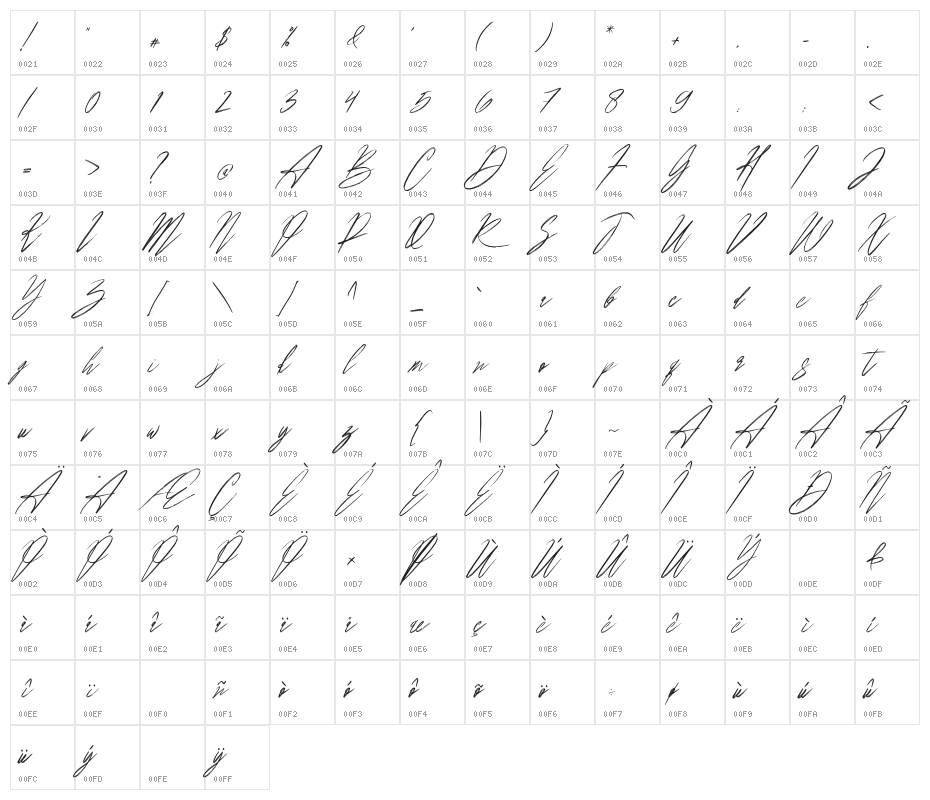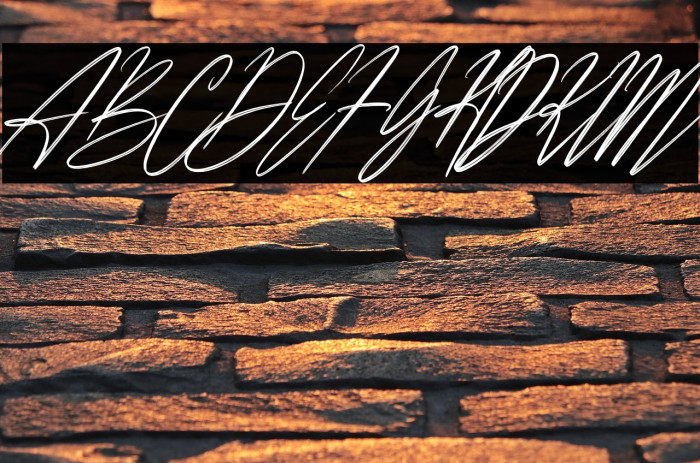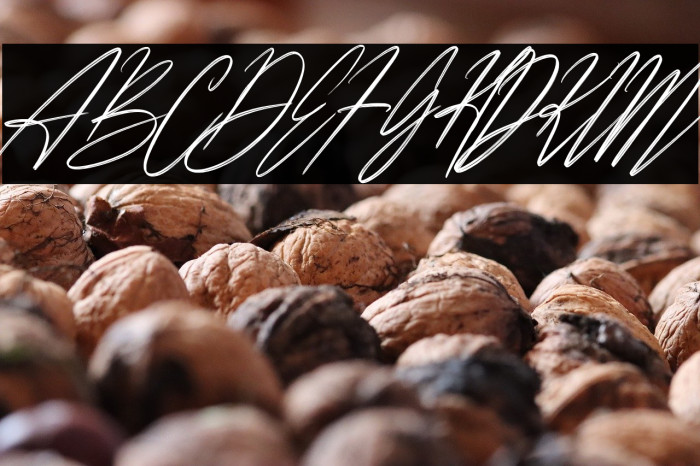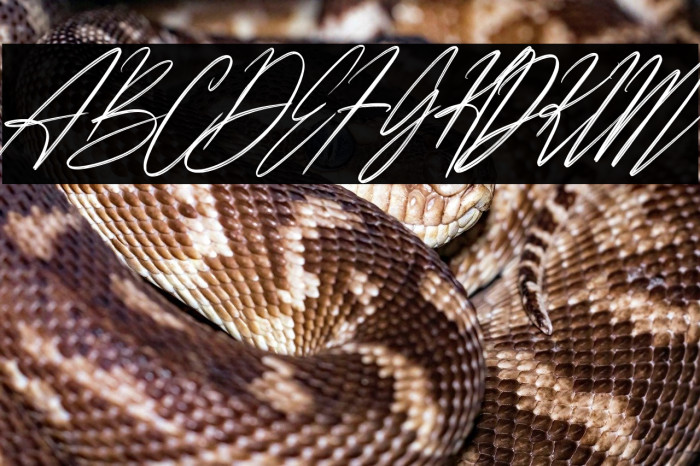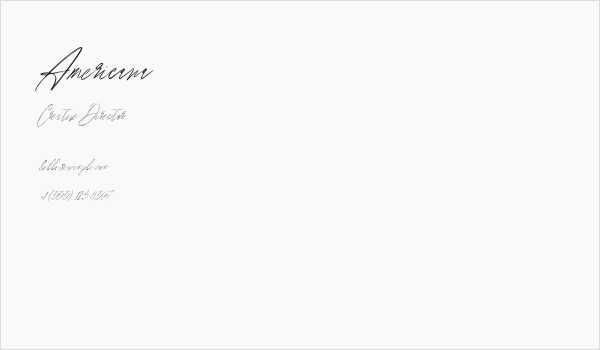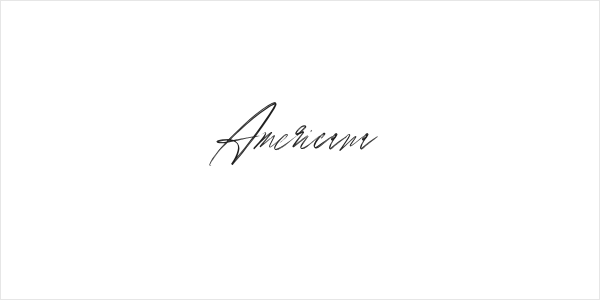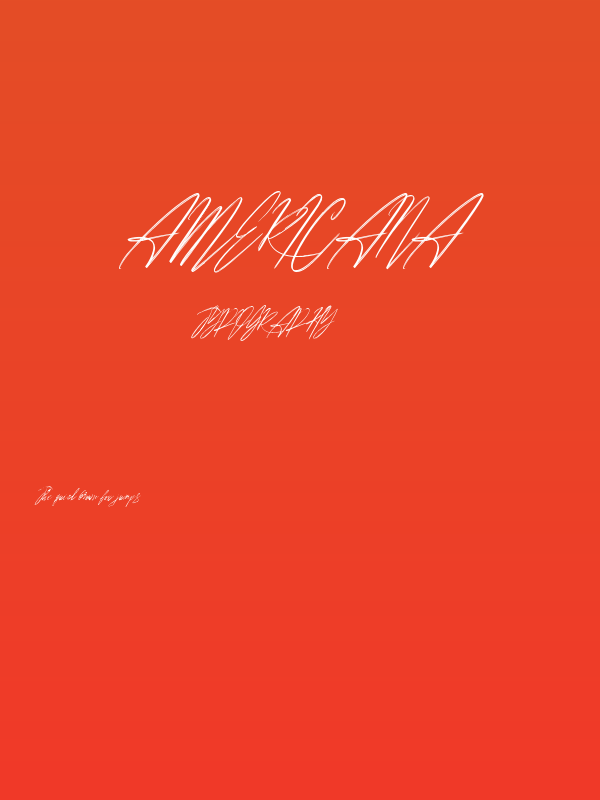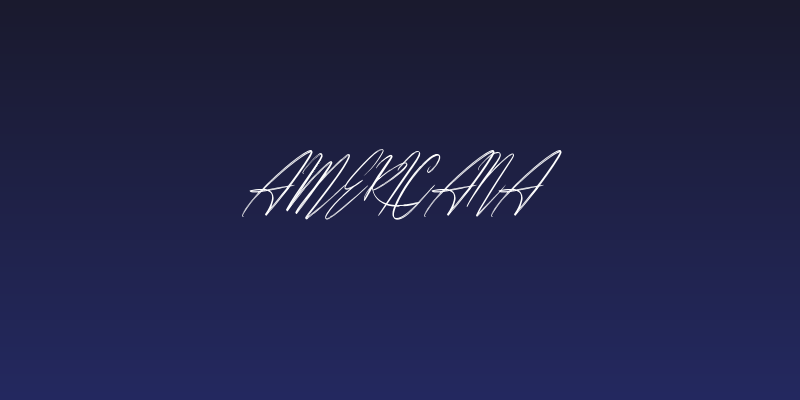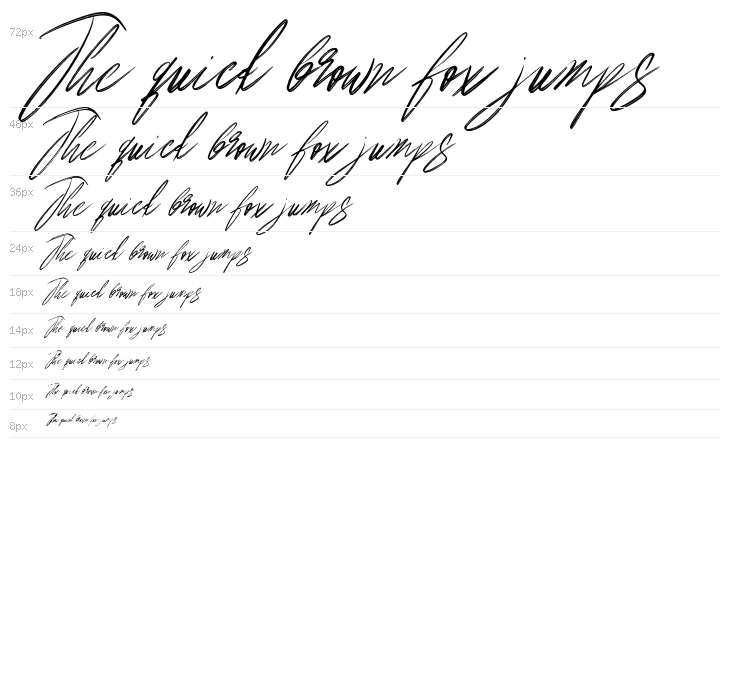
Americana Font
Americana Description
This font features a dynamic and expressive script style, characterized by fluid, sweeping strokes that convey a sense of elegance and movement. The uppercase letters are bold and dramatic, with exaggerated loops and curves that create a sense of grandeur. The lowercase letters maintain the same fluidity, with a more refined and delicate appearance. Numbers and special characters are crafted with the same attention to detail, ensuring consistency across all elements. The overall design is reminiscent of classic calligraphy, yet it maintains a modern edge, making it suitable for a variety of contemporary applications.
| Proposed Projects | Ideal for wedding invitations, branding, logo design, and elegant packaging. |